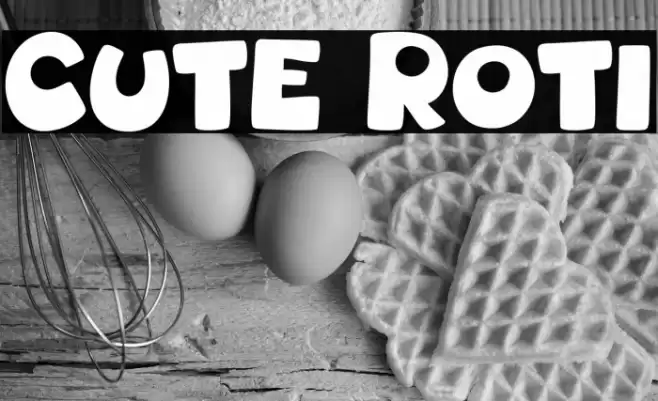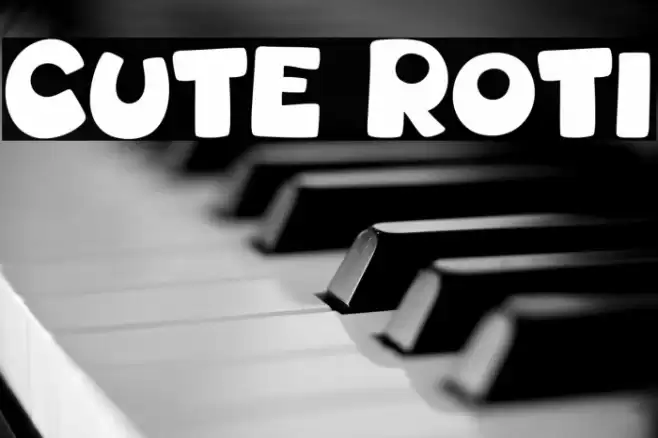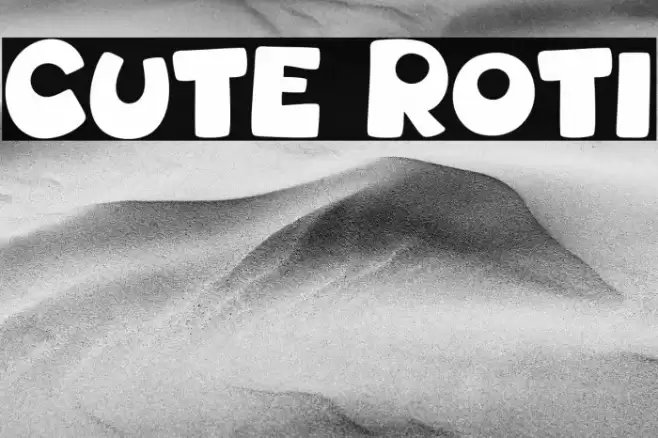
Cute Roti Font
Cute Roti Description
This playful and bold font features rounded, thick letters that exude a sense of fun and whimsy. The characters are uniformly bold with a consistent stroke width, creating a cohesive and eye-catching appearance. The rounded edges and slightly inflated look give it a friendly and approachable feel, making it ideal for projects that aim to convey warmth and creativity. The font includes a full set of uppercase and lowercase letters, numbers, and a variety of special characters, ensuring versatility in its application. Its unique style is perfect for capturing attention and adding a touch of personality to any design.
A playful, bold font with rounded, thick letters and a whimsical style from Uncategorized fonts.
- Font: Cute Roti
- Proposed Projects: Ideal for children's books, playful branding, party invitations, and creative posters.
- Overall Style: Playful